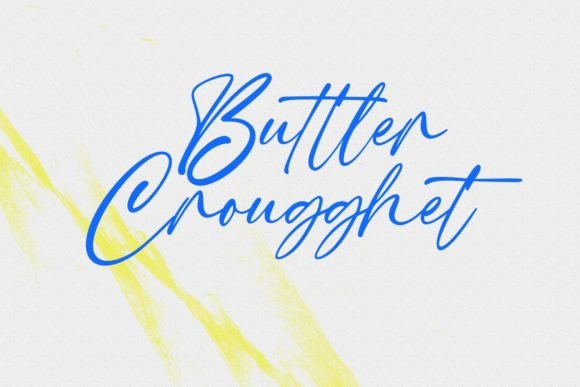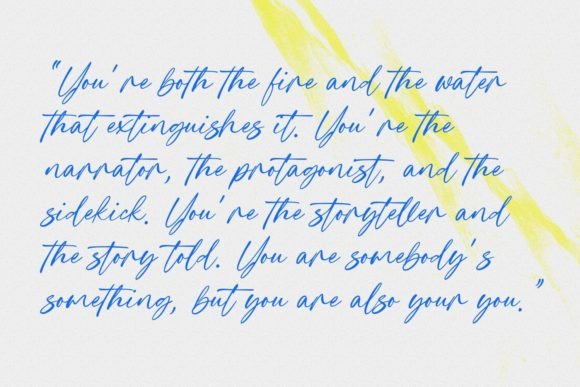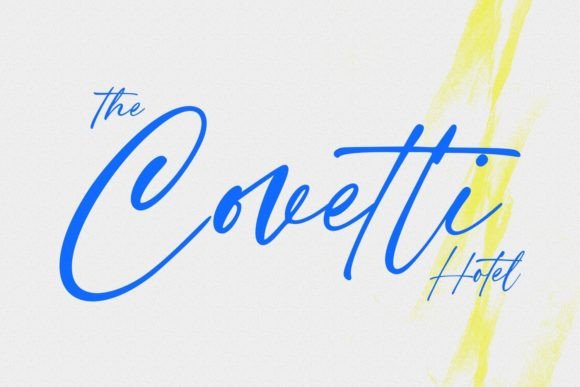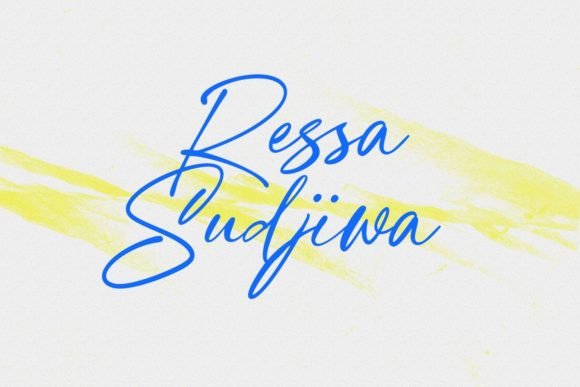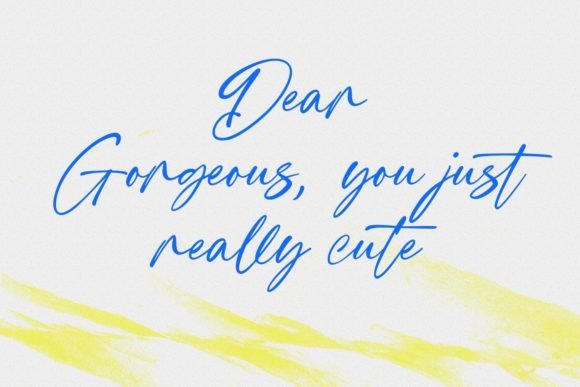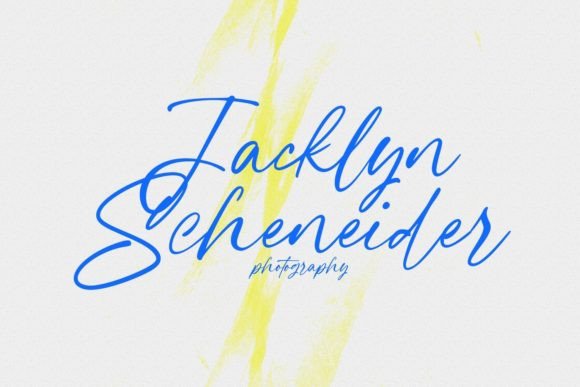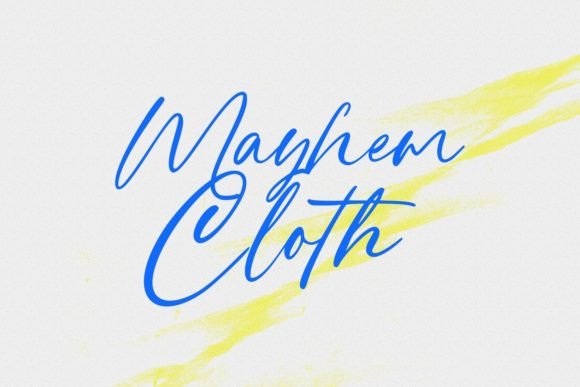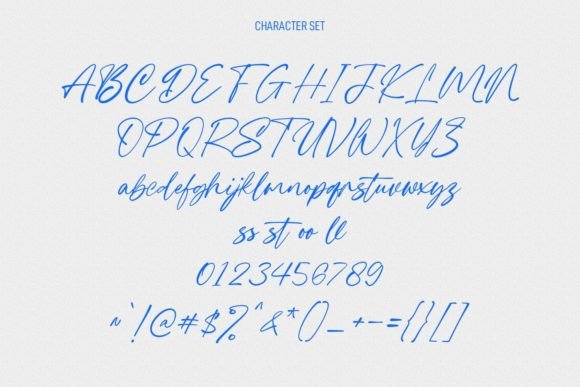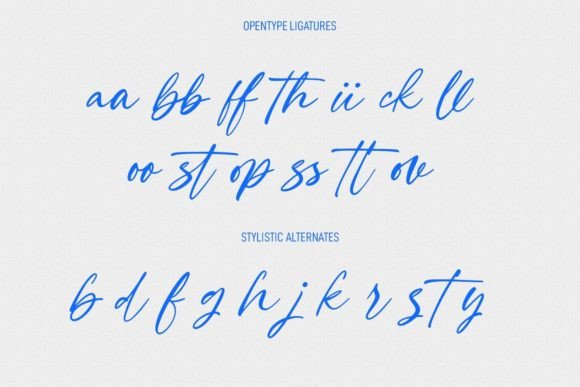
Counter Ropwells Font
About Counter Ropwells Font
Introducing Counter Ropwells, an expressive signature script font that brings a unique touch to your designs. With its light ink-is contrast stroke, playful characters featuring ligatures, and alternates for added creative flexibility, Counter Ropwells is more than just a font—it’s a design tool crafted to elevate your creative work. Whether you’re working on logo design, social media graphics, movie titles, book titles, short text, or even long text, Counter Ropwells is a versatile choice. It also serves well as secondary text when paired with a sans or serif font. Get ready to make stunning work with Counter Ropwells!
The expressive nature of Counter Ropwells shines through its signature script style. The light ink-is contrast stroke adds a touch of sophistication, making it visually appealing across a range of design applications.
The fun characters, along with ligatures and alternates, provide creative opportunities to make your designs stand out. Whether you’re crafting a logo, a book title, or a social media post, Counter Ropwells adds a playful and distinctive flair.
The font’s versatility makes it suitable for both short and long text passages, maintaining readability while infusing your text with a signature charm. This adaptability is especially useful in projects where a dynamic and expressive script is desired.
Consider using Counter Ropwells in movie titles for a stylish and eye-catching presentation. In logo design, it can add a personal touch, making your brand memorable. In social media graphics, Counter Ropwells contributes to a modern and engaging aesthetic.
Pairing Counter Ropwells with a sans or serif font for secondary text allows for a balanced and cohesive design. This versatility makes it suitable for a wide range of design projects, offering flexibility and creative freedom.
In conclusion, Counter Ropwells is not just a font; it’s a design companion that empowers you to create stunning and expressive work. With its signature script style, light contrast stroke, and creative elements, Counter Ropwells invites you to infuse your projects with a touch of personality and flair. Get ready to make a bold statement with Counter Ropwells!